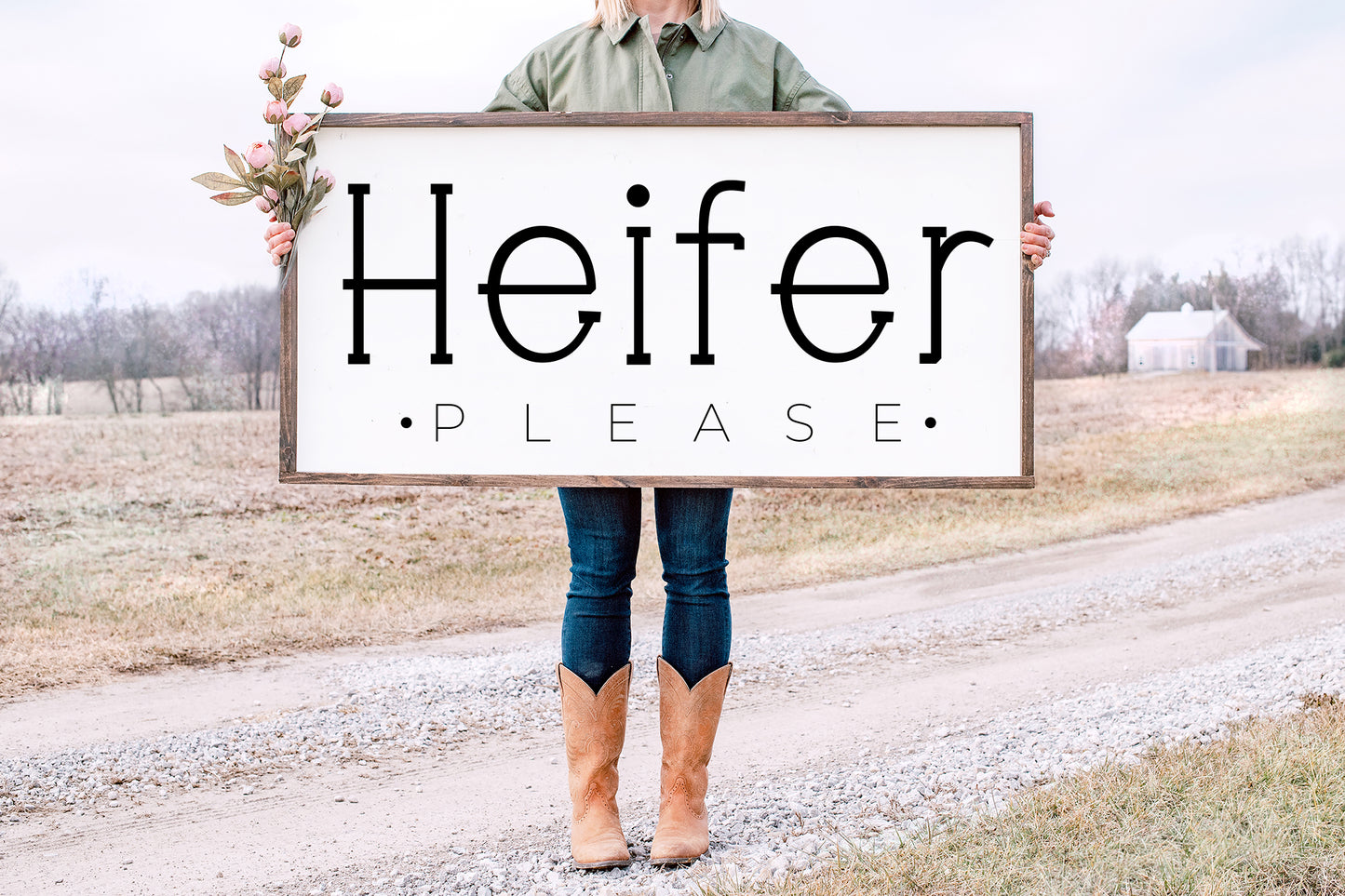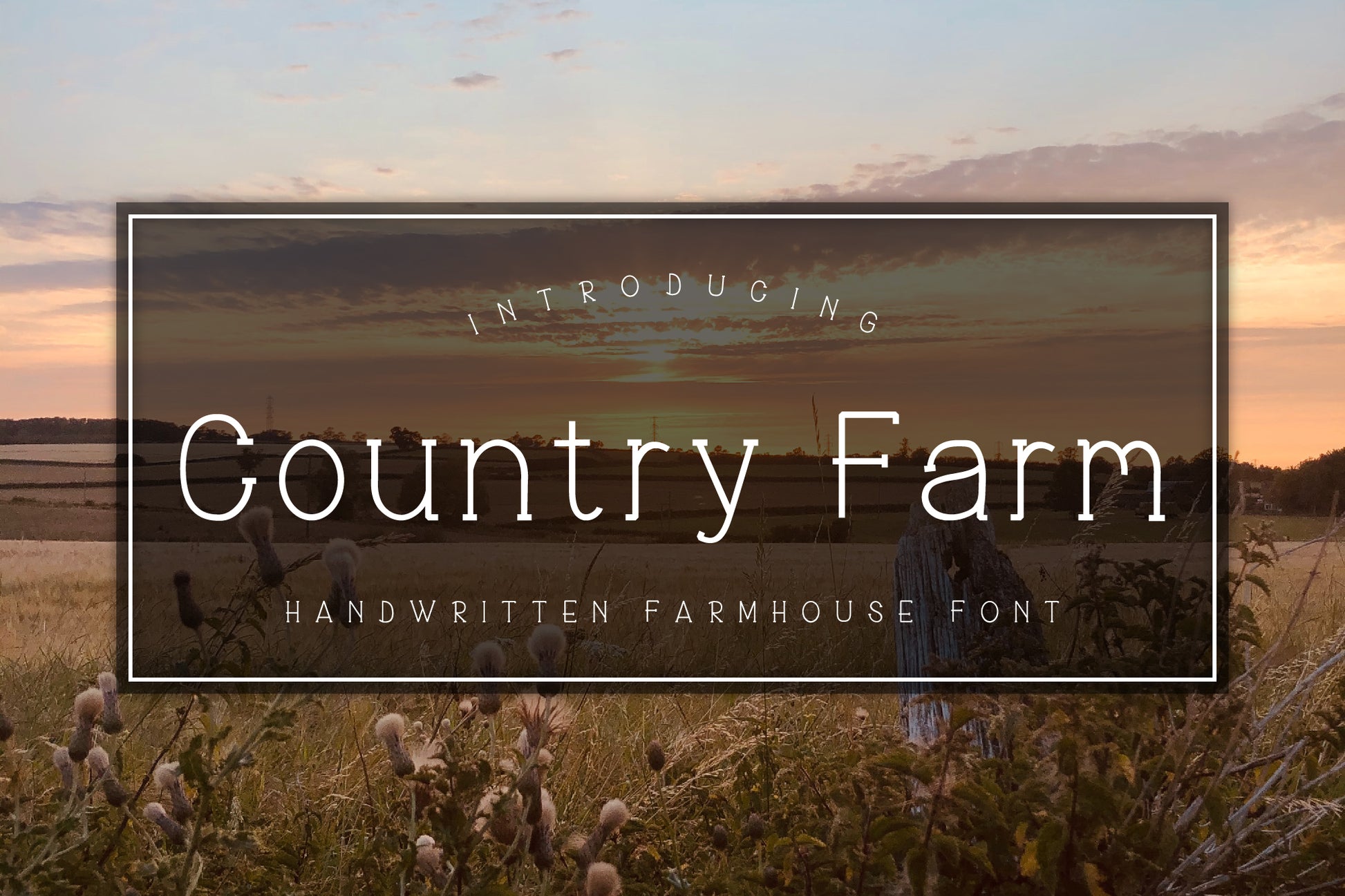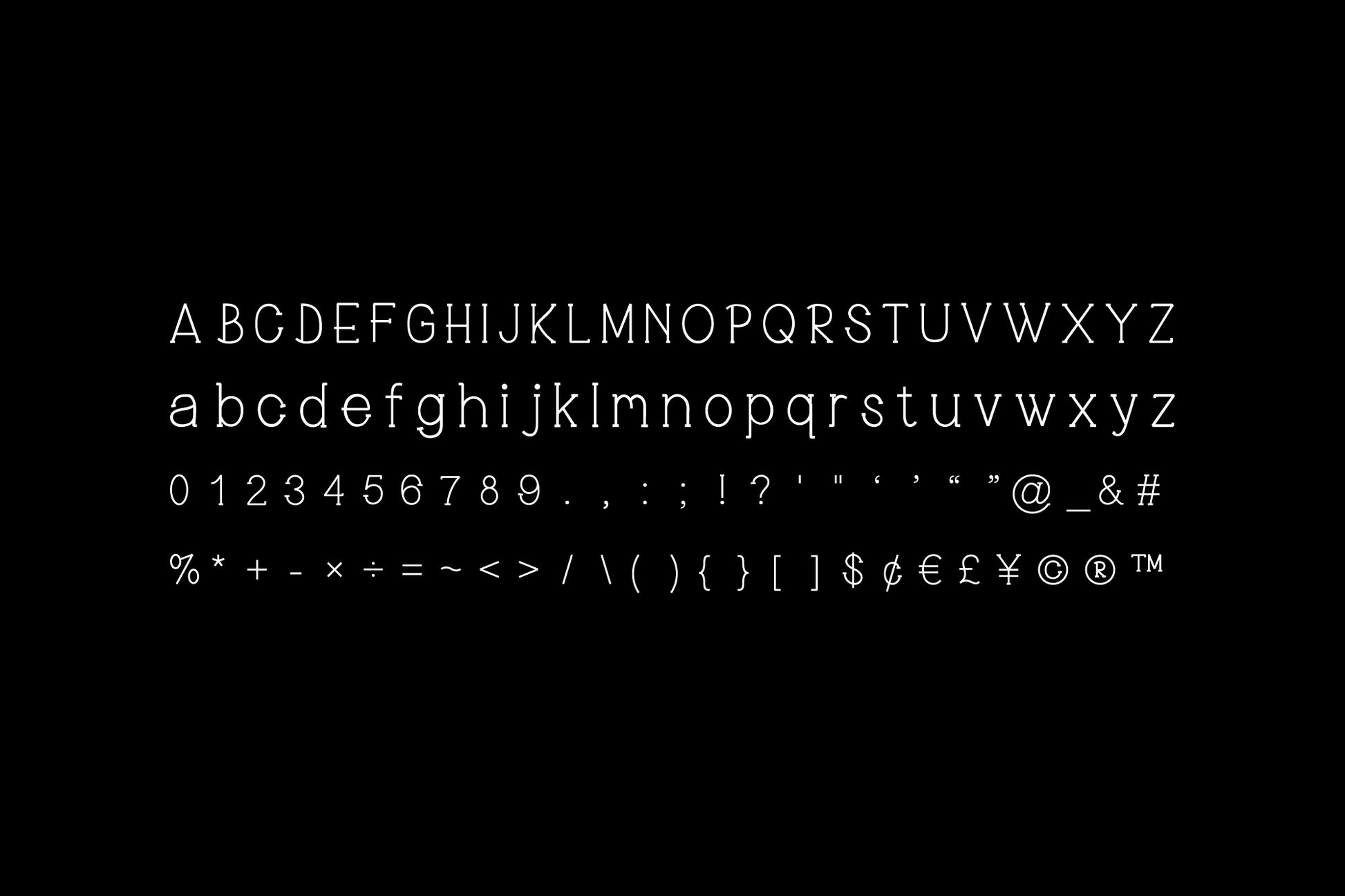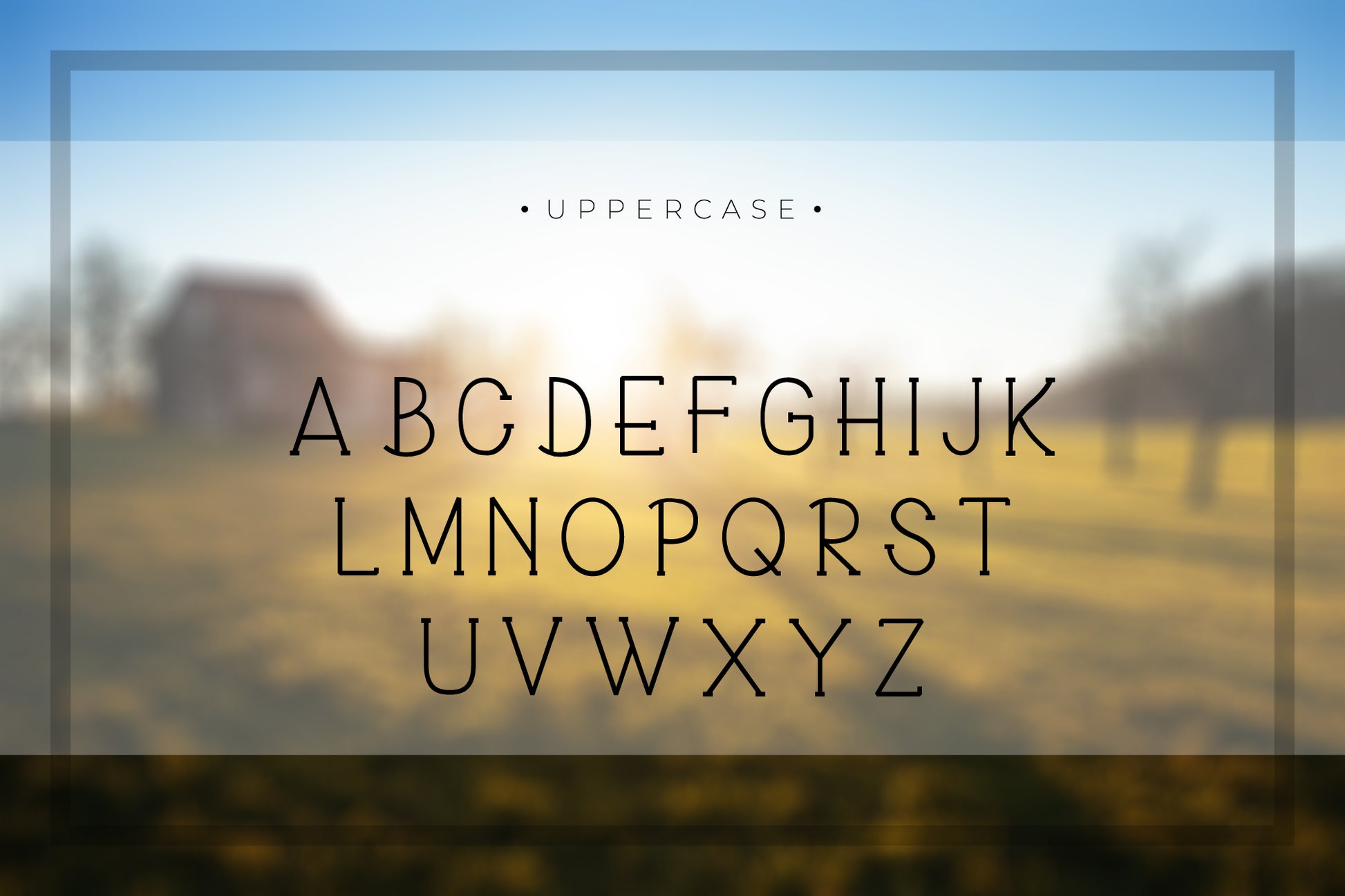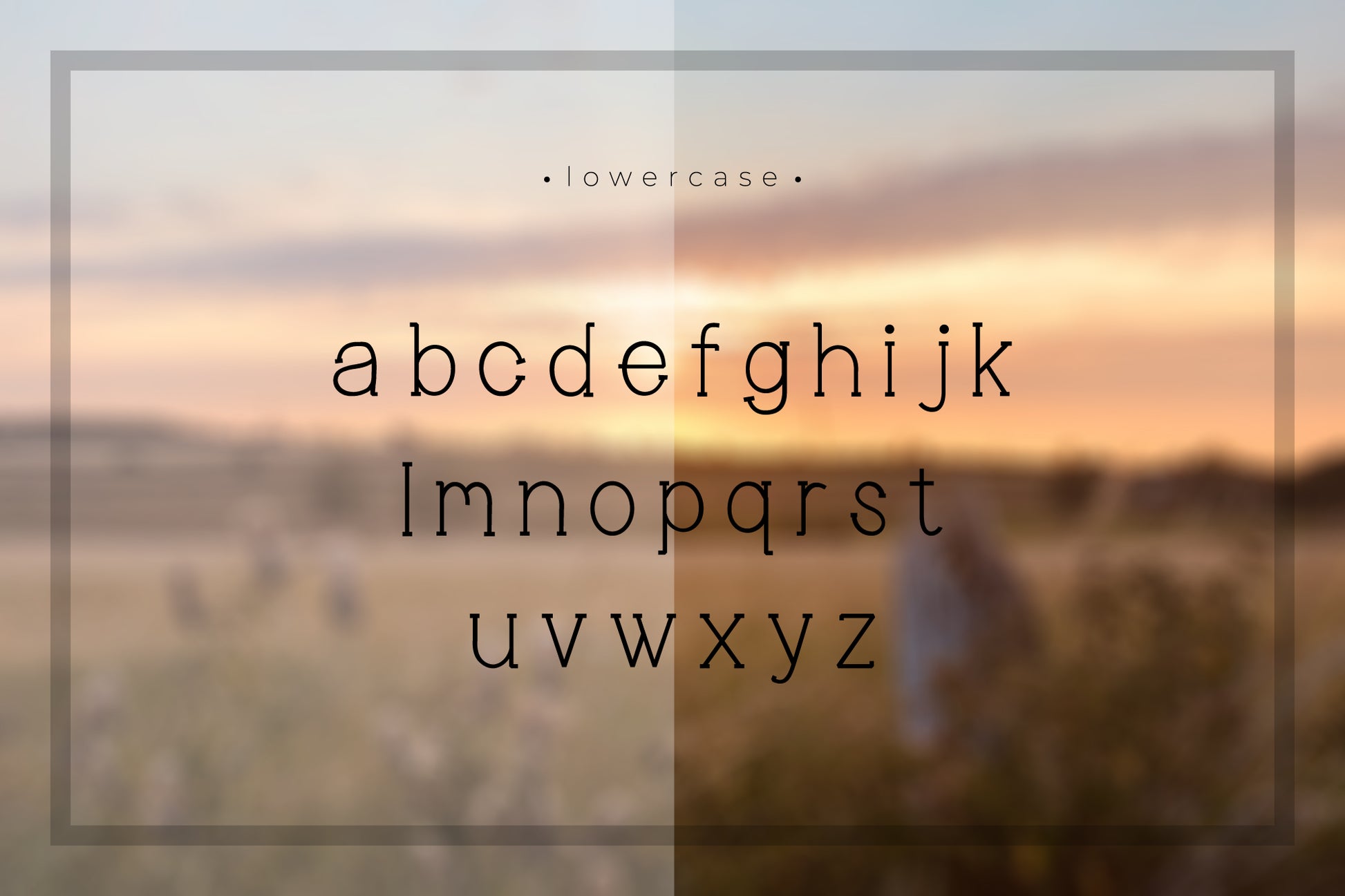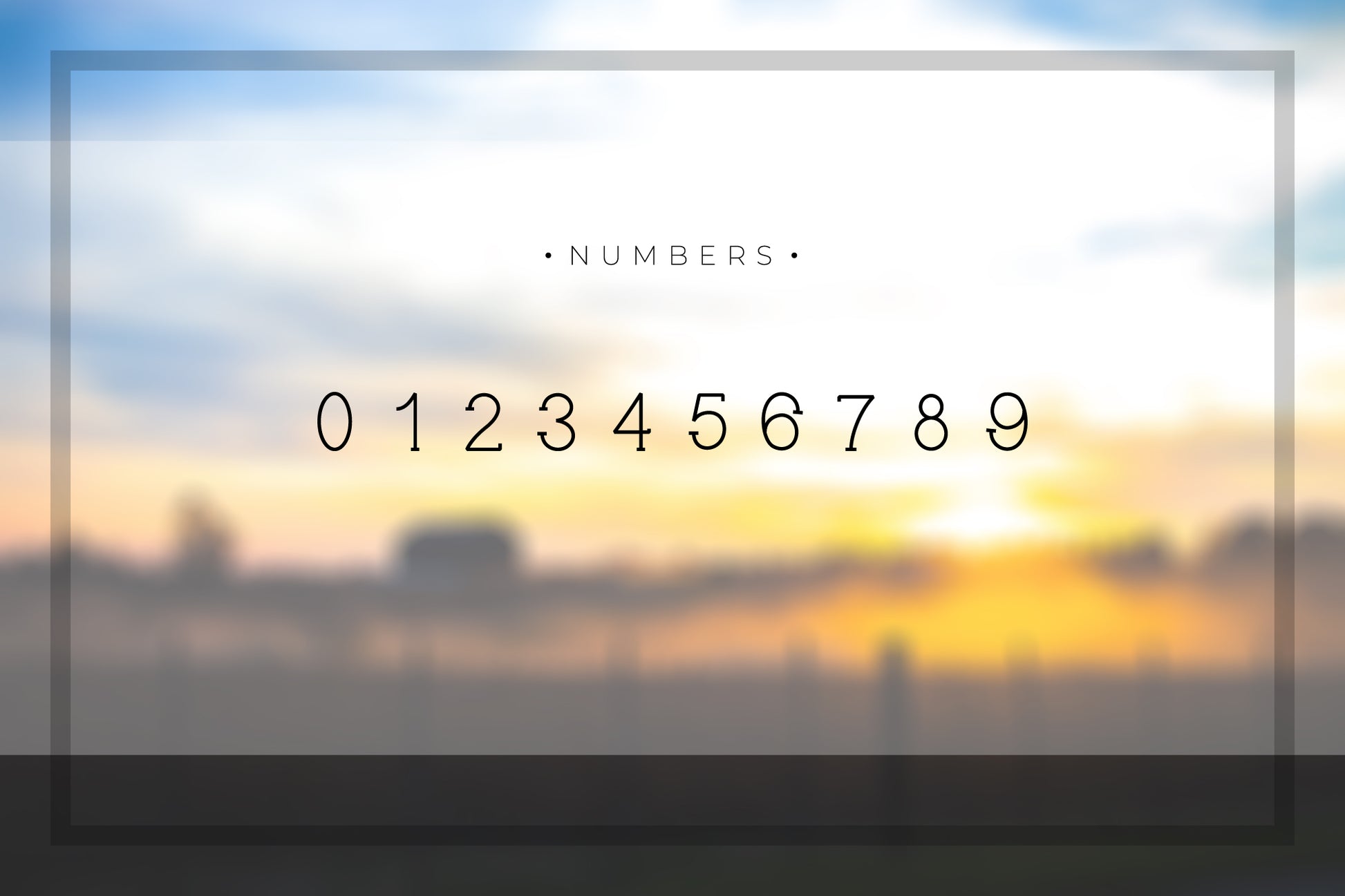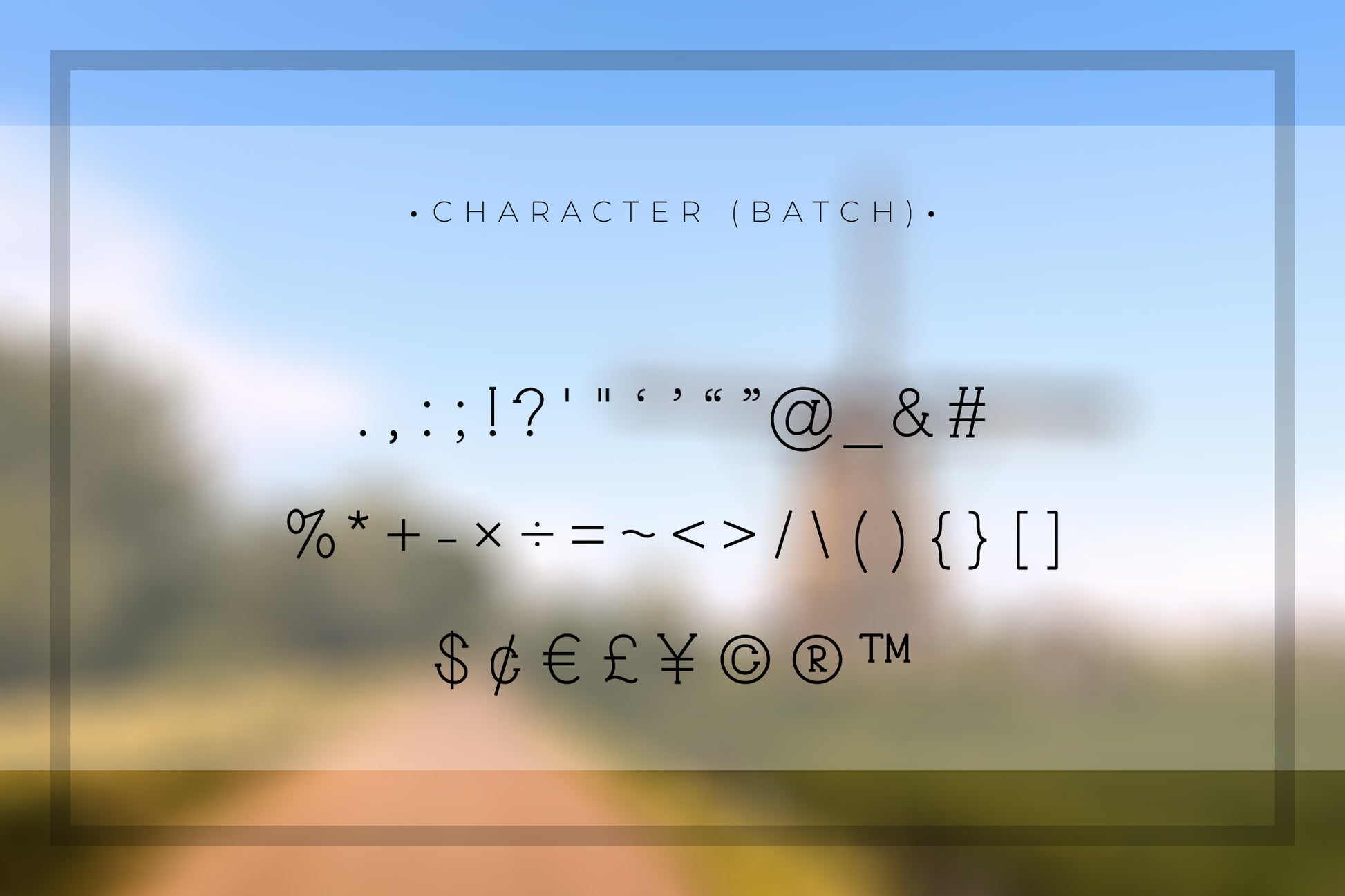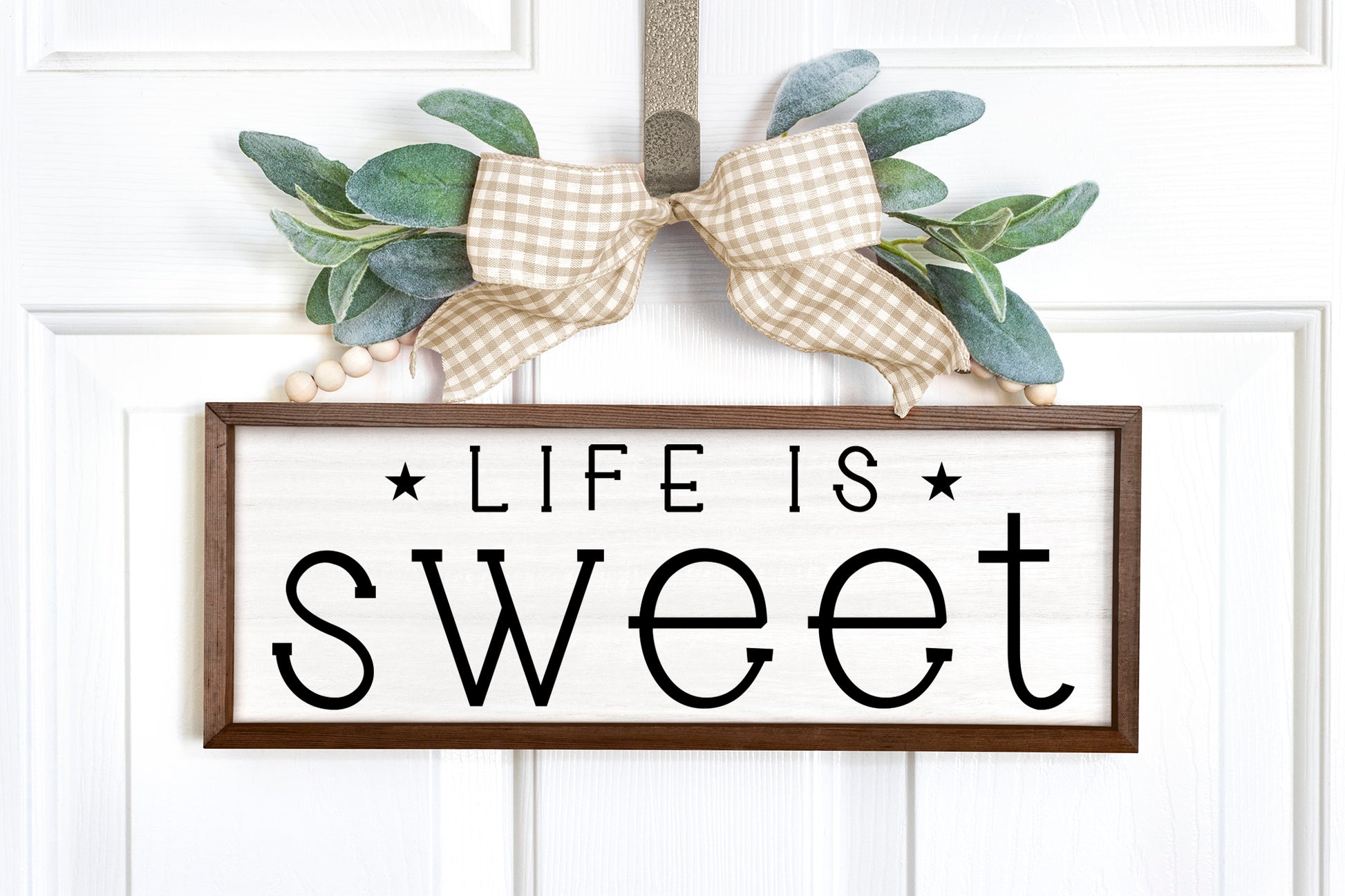
Country Farm - Handwritten Farmhouse Font
Country Farm is a slim and bold serif font. It can be used for many purposes, especially for farmhouse and country designs. You can use it for farmhouse signs, farmhouse décor, t-shirts, mugs, cards, Cricut projects, etc.